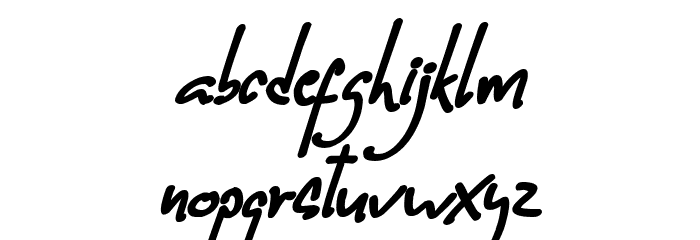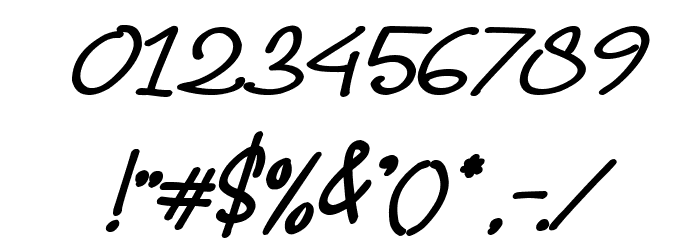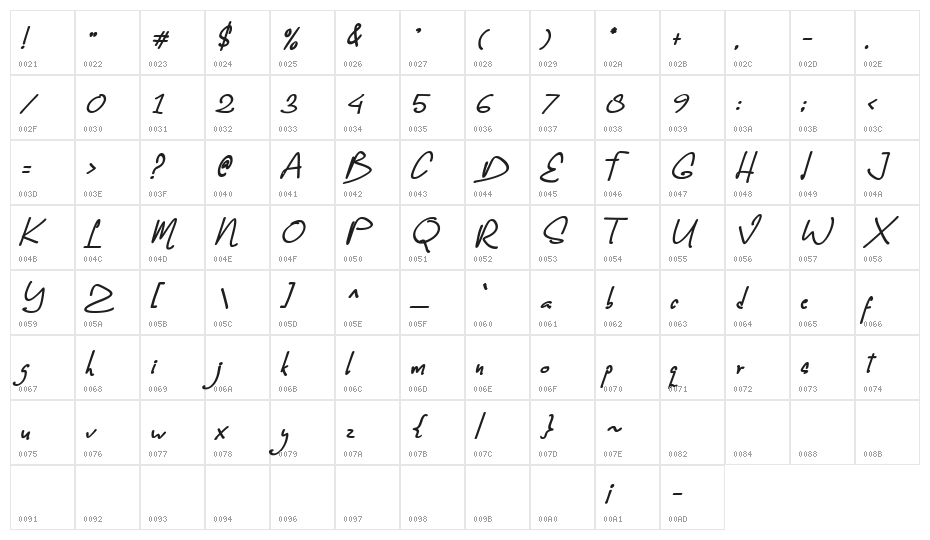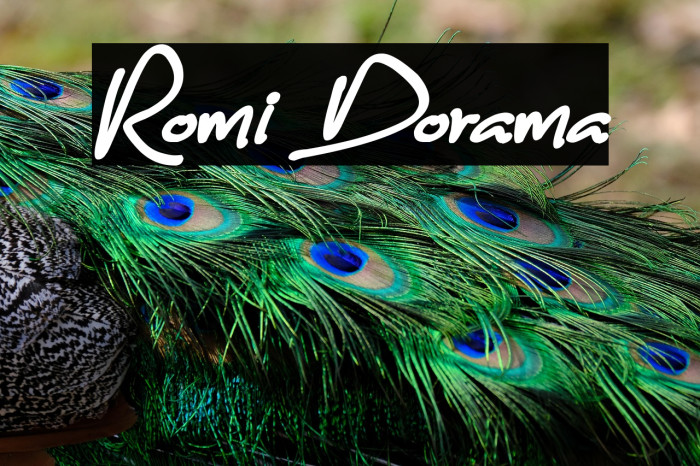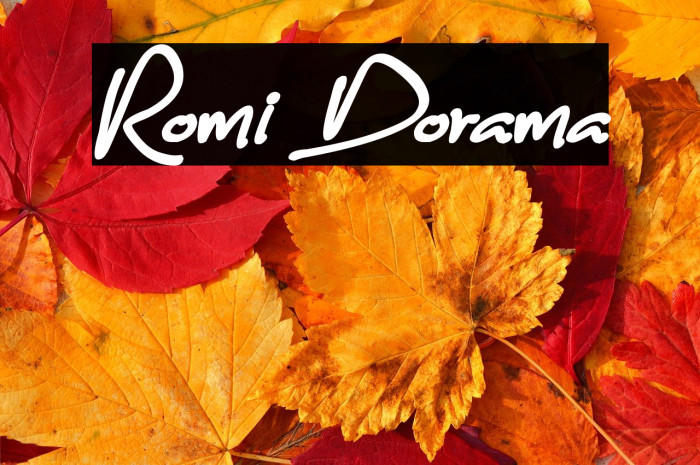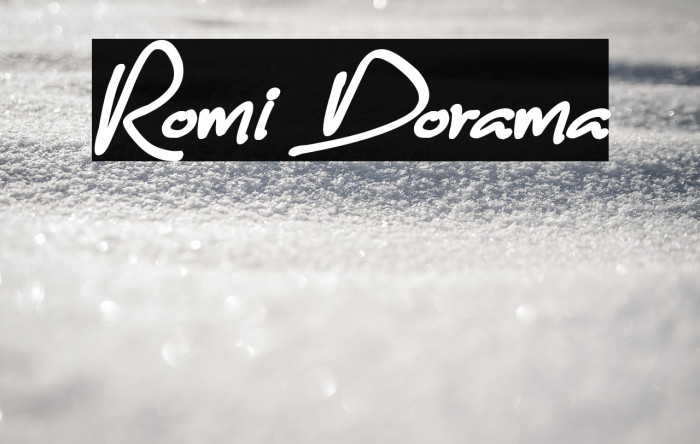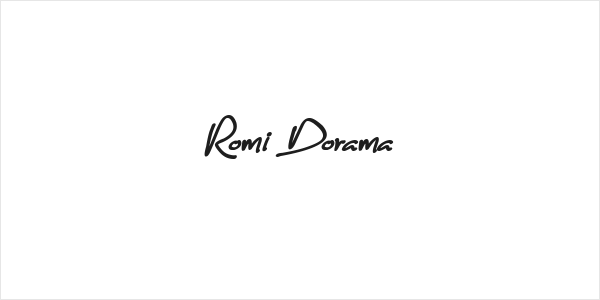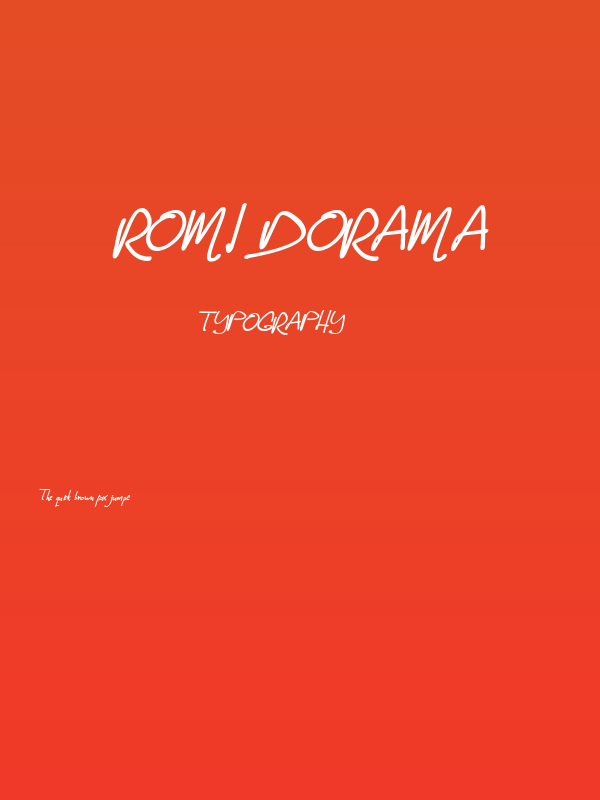
Romi Dorama Font
This font exhibits a lively and dynamic script style, characterized by its fluid and cursive letterforms. The strokes are smooth and connected, giving it a handwritten appearance that exudes elegance and personality. The uppercase letters are bold and slightly slanted, while the lowercase letters maintain a consistent flow with a playful touch. Numbers and special characters are designed to complement the overall aesthetic, ensuring a cohesive look across all text. The font's energetic style makes it suitable for creative projects that require a personal and artistic touch.
A lively script font with fluid, cursive letterforms and a handwritten appearance.
- Font: Romi Dorama
- Proposed Projects: Ideal for wedding invitations, greeting cards, personal branding, and artistic projects.
- Category: Script
- Use Case: Logos, Invitations, Artistic projects